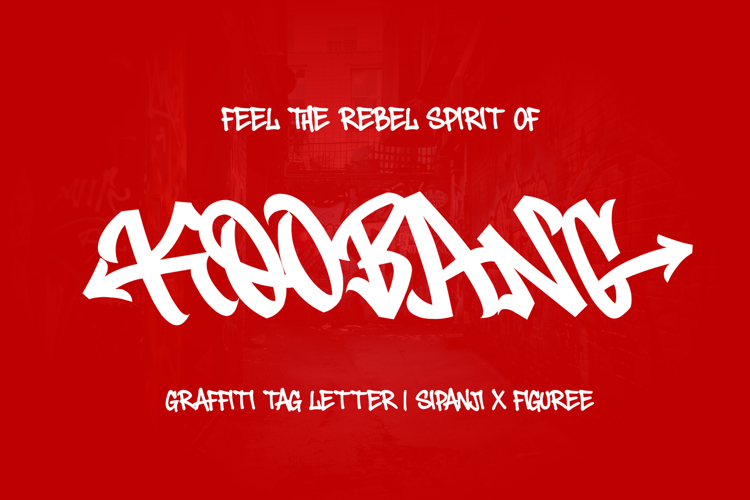
Koobang - Monoline Graffiti Tag Font
Koobang is a monoline graffiti tag font that captures the true rhythm of urban street art — bold, confident, and full of motion. Designed for artists, designers, and brands that love authentic graffiti energy, Koobang represents freedom of expression through clean marker strokes and natural handstyle flow. Every letter looks as if it was drawn with a quick, precise graffiti pen — smooth, spontaneous, and alive.
This font combines street authenticity with modern digital craftsmanship. Each character flows naturally, keeping the energy of real tagging culture while maintaining clean readability. Koobang’s monoline structure gives a balanced look that feels stylish and effortless, perfect for projects that demand both professionalism and street attitude.
Koobang includes Swash, Ligature, and Multilingual Support, allowing designers to add rhythm and personality to their lettering. The swashes add flair and motion, while ligatures create realistic graffiti letter combinations that look natural and organic. Whether you’re designing for print, apparel, or digital media, Koobang adapts beautifully to every context — it’s simple to use but visually powerful.
Koobang brings together the fluid motion of tagging and the clarity of monoline design. It’s bold but smooth, expressive yet controlled. Unlike many graffiti fonts that are too chaotic or heavy, Koobang balances legibility with personality — it’s clean enough for modern brands yet raw enough to feel authentic. The addition of Swash and Ligature features helps you create natural handstyle variations effortlessly, adding depth to your typography without extra editing.
Its versatility makes it perfect for both streetwear branding and digital artwork. You can use it to create energetic titles, handwritten-style quotes, or even full graffiti layouts that look fresh and professional. From edgy fashion to underground event posters, Koobang turns any project into an artistic statement.
The essence of Koobang lies in its movement — it’s not just a font, it’s a feeling. It captures the rebellious pulse of the street, but with enough structure to stay visually elegant. This makes it ideal for creators who want to combine urban energy with modern design principles.
Koobang is more than a graffiti tag font; it’s a design tool built for the new generation of urban creators who value authenticity, flow, and modern aesthetics. Whether you want to design something raw or refined, Koobang gives you the best of both worlds.